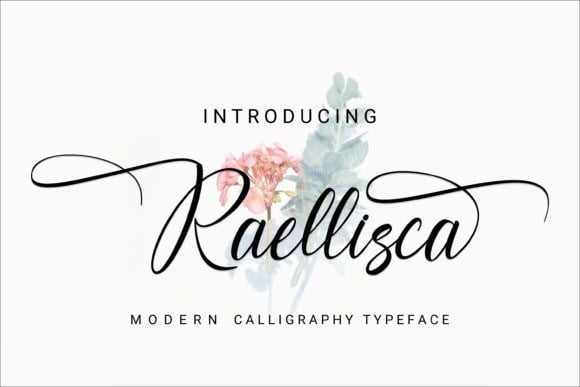
Raellisca Font
Raellisca Font is a font collection that contains more of alternate and some Ornament.
The collection of fonts that are designed to complement each other in their use.
Raellisca Font is perfect for logo design, t-shirts, flyers, apparel, packaging, advertising, Wedding Invitation etc.
This typeface contain of Uppercase, Lowercase, Alternate, Swash, Number, Symbol, Punctuation, Ligature etc.